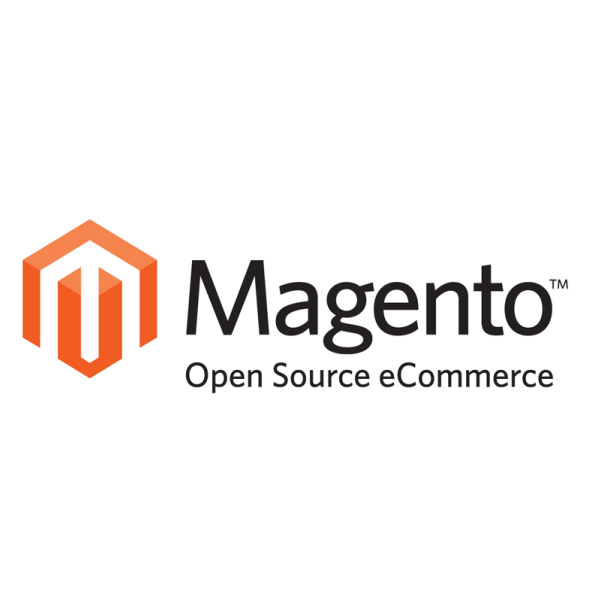
Magento Font
Fonts in UseMagento is an open-source e-commerce platform that provides powerful features for building and managing online stores, offering flexibility and scalability for businesses of all sizes.
The typography used in the Magento logo is Whitney, a humanist sans-serif typeface designed by Tobias Frere-Jones. More information about the typeface is available here.